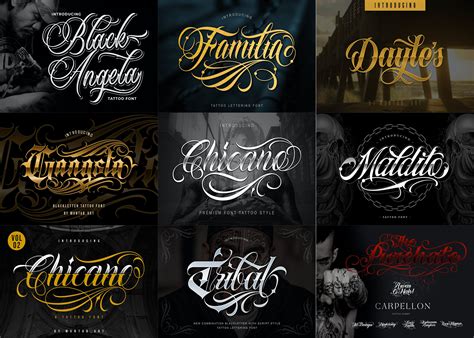
Font Tattoo, These typewriter font tattoo ideas are sure to inspire your next tattoo. In recent years, the fonts used in tattoo designs are decisive, because they largely affect the final result.
Tattoo fonts perfectly carry this element all the while adding in some thick and bold strokes. These typewriter font tattoo ideas are sure to inspire your next tattoo. Tattoo font generator allows you to generate tattoo lettering designs by selecting the font that you want to use, the size, color and the text.
We definitely recommend this one to anyone who wants to use multiple colors in their text as it looks pretty amazing. Tattoo font generator allows you to generate tattoo lettering designs by selecting the font that you want to use, the size, color and the text. We have 63 free tattoo, calligraphy fonts to offer for direct downloading · 1001 fonts is your favorite site for free fonts since 2001 Find and download the right font for your next tattoo.
This is what’s known as a slab serif typeface, meaning it’s a bolder serif font that’s great for anyone trying to make a bold statement. When using fonts for tattoos, it is crucial to ensure that the font allows enough space between each letter or number. In addition to plain typewriter text, you can also choose a typewriter. Pure text.
The courier typeface was designed by bud kettler in 1955, and implemented for ibm’s typewriters, before becoming a staple of personal computers for its ease of reading. Tattoo font generator allows you to generate tattoo lettering designs by selecting the font that you want to use, the size, color and the text. To lend some color to your typography and.
We have 63 free tattoo, calligraphy fonts to offer for direct downloading · 1001 fonts is your favorite site for free fonts since 2001 When using fonts for tattoos, it is crucial to ensure that the font allows enough space between each letter or number. The anttariksa brush script font has an elegant, textured handwritten style and was created by.
It is such a decorative and a fantastic tribal font, which is equally free for personal use. Click to find the best 153 free fonts in the tattoo lettering style. Font design and ideas make the perfect compliment to any tattoo. Script vs display tattoo fonts. Our free tattoo font creator online gives you an inside look at what real.
We definitely recommend this one to anyone who wants to use multiple colors in their text as it looks pretty amazing. This font is perfect for designing greeting cards, logos, and even business cards. Script vs display tattoo fonts. Lettering styles include tribal, traditional sailor, blackletter, fancy, cursive, script, etc. It is such a decorative and a fantastic tribal font,.
Fonts for tattoos, drawings and decorations | font & text generator. We offer a few different tattoo lettering fonts you can try before you make a decision. With the crispy tattooed style and the cool authentic vibes they bring along, your lettering is bound to be associated with a timeless charm. These typewriter font tattoo ideas are sure to inspire.
Today in many tattoo salons you can make an inscription that will consist of one or more letters; Gibrael is a tattoo script font with an artistic handwritten design. On this page we have collected beautiful tattoo fonts that will suit perfectly for your name tattoo. 1,225,008 downloads (104 yesterday) 9 comments 100% free. Click to find the best 153.
The courier typeface was designed by bud kettler in 1955, and implemented for ibm’s typewriters, before becoming a staple of personal computers for its ease of reading. 1,225,008 downloads (104 yesterday) 9 comments 100% free. 336,963 downloads (8 yesterday) 1 comment free for personal use. Today in many tattoo salons you can make an inscription that will consist of one.